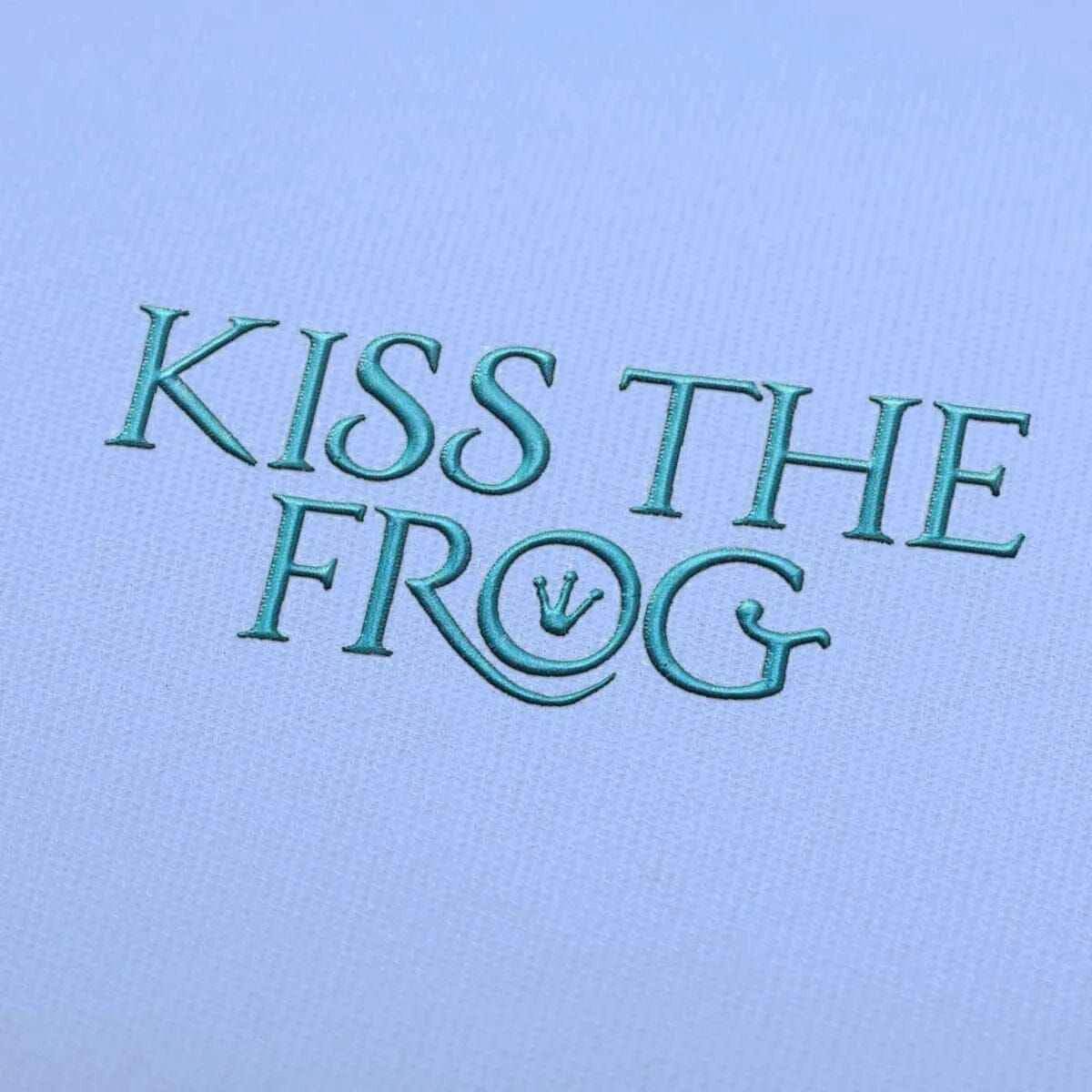
Transform your embroidery projects with the enchanting Kiss the Frog Embroidery Alphabet Font Set β where elegance meets creativity!
Introducing the Kiss the Frog Embroidery Alphabet Font Set, a beautifully crafted collection that brings sophistication to every project. Whether youβre personalizing gifts for loved ones or adding flair to your own garments, this font set is designed to elevate your craftsmanship and inspire your creativity.
Why You'll Love This Design
The Kiss the Frog Alphabet Font Set is perfect for those who appreciate elegance in their embroidery work. With its refined curves and unique characters, this set not only enhances the beauty of your designs but also adds a personal touch that makes each piece truly special. You'll find it easy to work with and perfect for any occasion.
Creative Applications
Imagine the endless possibilities when you use this font set! From delicate monograms on elegant linens to charming letters on children's clothing, the Kiss the Frog designs can transform any project into a masterpiece. Use them for custom bags, personalized quilts, or even festive decorations to impress your guests and showcase your creativity.
Transform your embroidery projects with the enchanting Kiss the Frog Embroidery Alphabet Font Set β where elegance meets creativity!
Introducing the Kiss the Frog Embroidery Alphabet Font Set, a beautifully crafted collection that brings sophistication to every project. Whether youβre personalizing gifts for loved ones or adding flair to your own garments, this font set is designed to elevate your craftsmanship and inspire your creativity.
Why You'll Love This Design
The Kiss the Frog Alphabet Font Set is perfect for those who appreciate elegance in their embroidery work. With its refined curves and unique characters, this set not only enhances the beauty of your designs but also adds a personal touch that makes each piece truly special. You'll find it easy to work with and perfect for any occasion.
Creative Applications
Imagine the endless possibilities when you use this font set! From delicate monograms on elegant linens to charming letters on children's clothing, the Kiss the Frog designs can transform any project into a masterpiece. Use them for custom bags, personalized quilts, or even festive decorations to impress your guests and showcase your creativity.